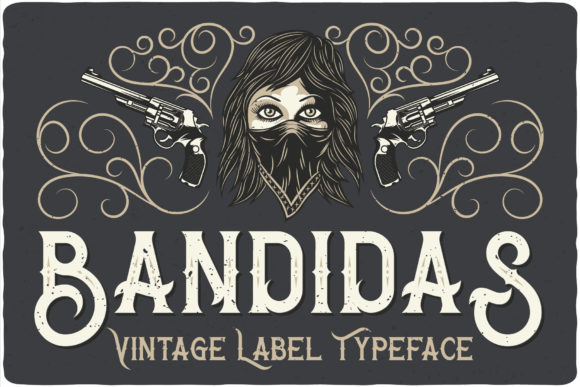
Step into the world of audacious typography with Bandidas Font, a display font that exudes confidence and individuality. This remarkable font commands attention effortlessly, making it the perfect choice for creating designs that leave a lasting impression.
Bandidas Font is a visual masterpiece, meticulously crafted to capture the essence of pop art. Its bold lines and exuberant curves dance across the page, evoking a sense of playful rebellion and artistic freedom.
Unleash your creativity and let your designs take center stage. Bandidas Font's versatility knows no bounds, seamlessly adapting to a myriad of design styles. From eye-catching logos that demand attention to elegant wedding invitations that exude timeless charm, this font is your trusted companion in the realm of visual communication.
With Bandidas Font, you hold the key to unlocking a world of design possibilities. Transform your words into captivating works of art, leaving your audience in awe.
Stand out from the crowd and embrace the bold spirit of Bandidas Font. Its unique character will infuse your designs with a refreshing dose of personality and style. Dare to be different, dare to be bold, and let Bandidas Font lead the way.